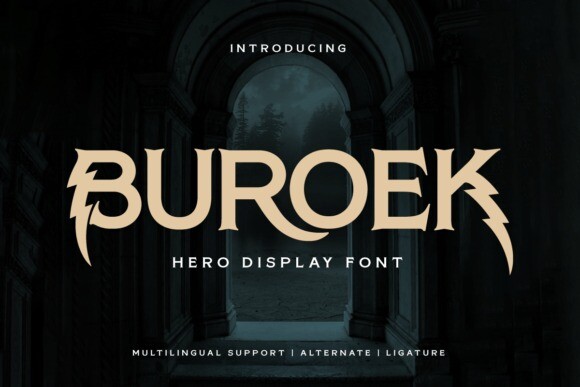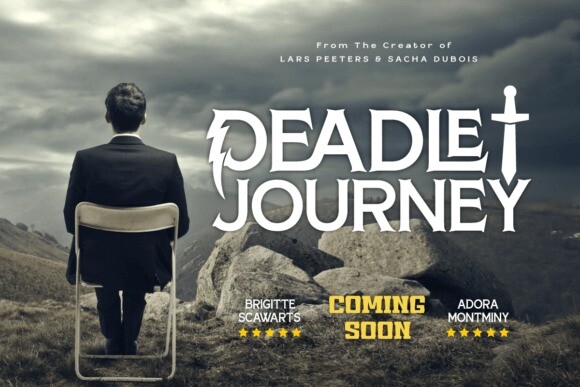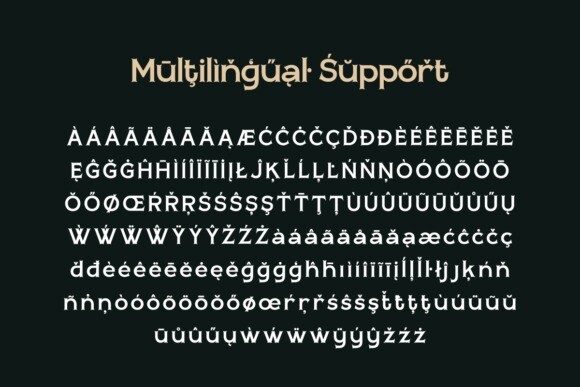
Buroek Font
Buroek Font is a display font that is not just letters, but also a spirit of courage that is expressed in every line and curve. Created in a stunning superhero style, Buroek is the perfect choice for projects that require a visual punch.